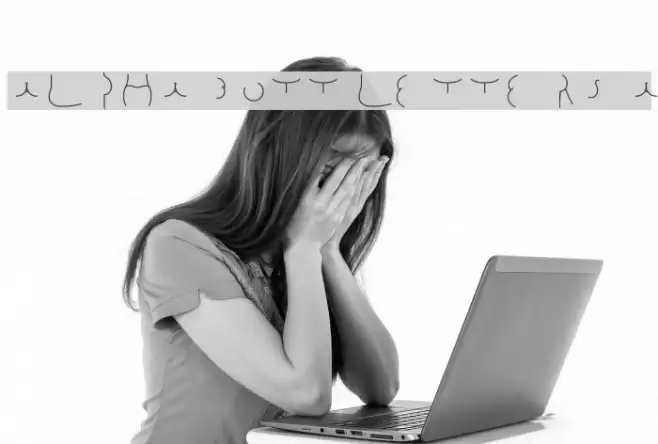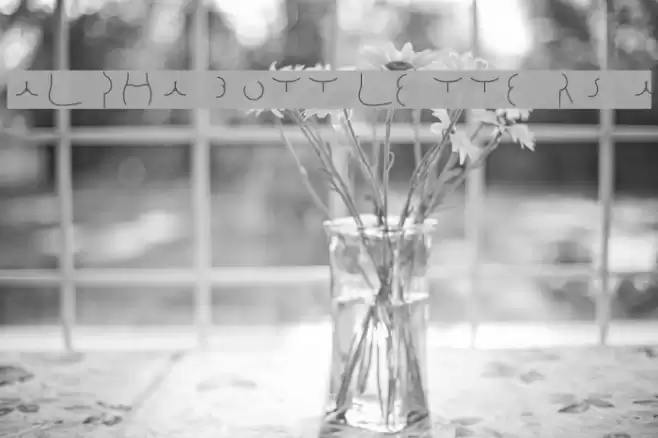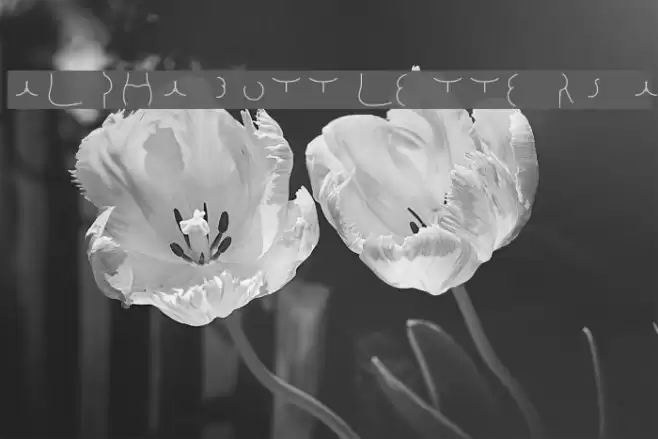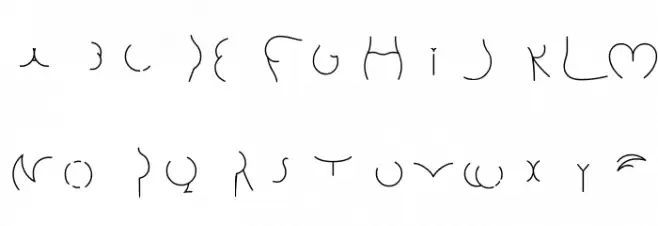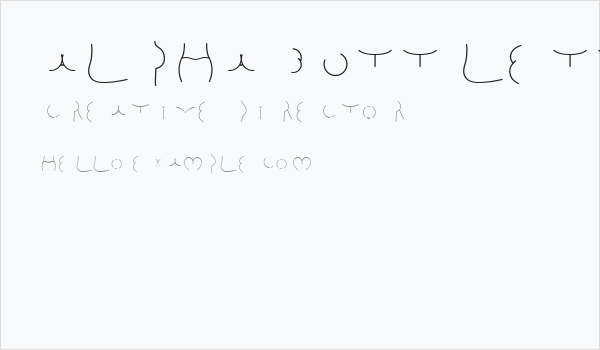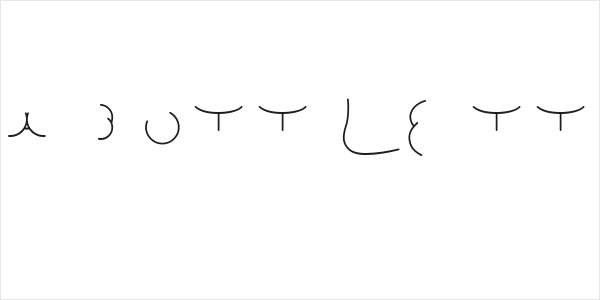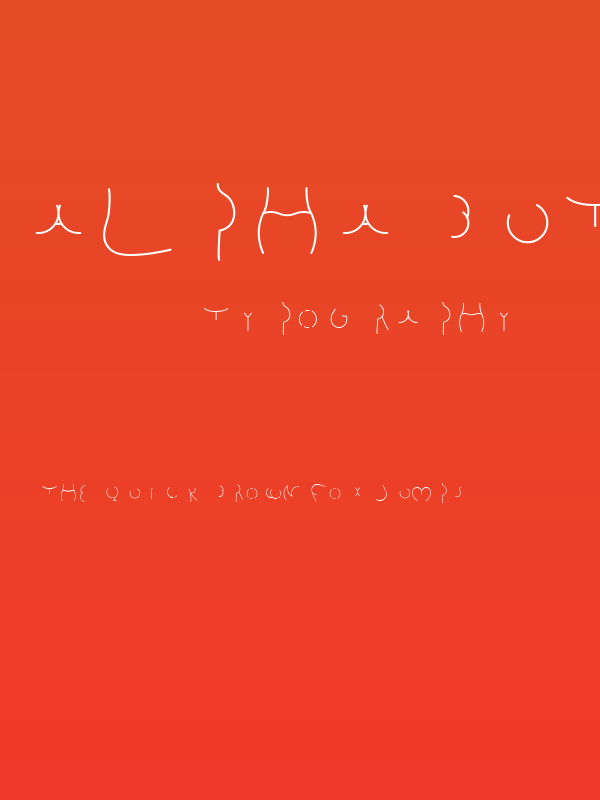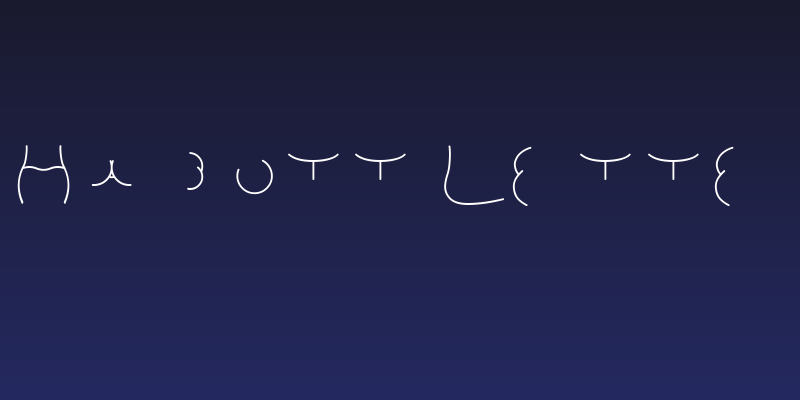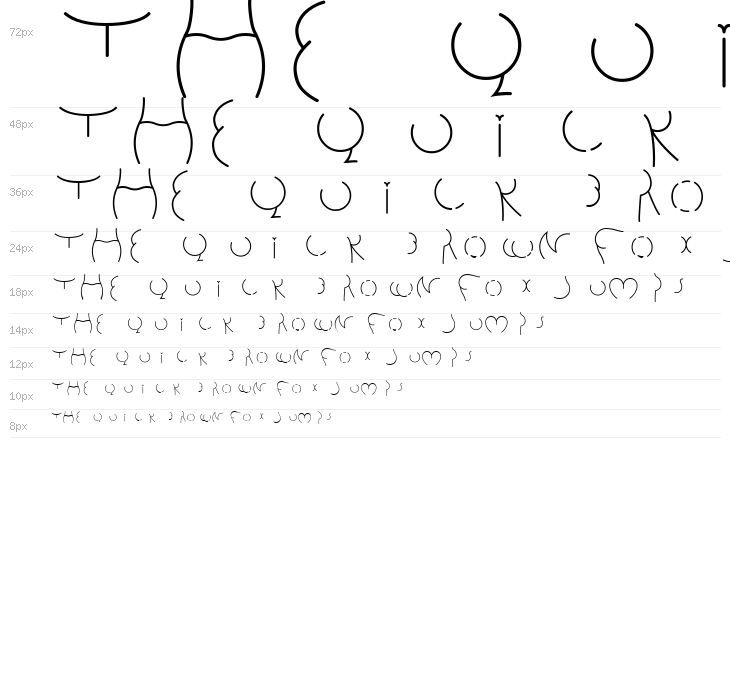
Alphabutt Letters A Font
Alphabutt Letters A Description
This font features a whimsical and playful design, characterized by its thin, curvy lines and unique, abstract shapes. Each letter is crafted with a sense of movement and fluidity, creating a sense of lightness and fun. The characters are distinct and imaginative, with some resembling abstract art more than traditional letters. This font is ideal for creative projects that require a touch of humor and originality. The overall design is minimalist yet expressive, making it suitable for modern and artistic applications.
A whimsical and playful font with thin, curvy lines and abstract shapes from Dingbats fonts.
- Proposed Projects: Ideal for children's books, playful branding, creative posters, and artistic invitations.
- Weight: Light
- Character Spacing: Wide
- Use Case: Logos, Headlines, Artistic projects